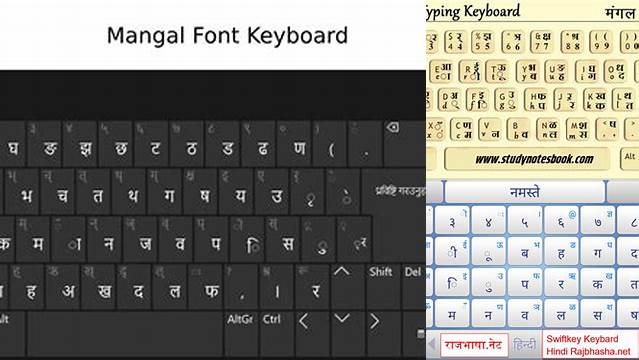
Mangal Font Keyboard: Images & Free Downloads
Hey guys! Ever needed to type in Hindi or another language that uses the Mangal font? It can be a bit tricky without the right tools. This article is your ultimate guide to finding and using a Mangal font keyboard, complete with images and resources for free downloads. We'll cover everything from understanding what Mangal font is to installing and using a virtual keyboard. Let's dive in!
What is Mangal Font?
Mangal font is a popular Devanagari script font used extensively for typing in Hindi and other Indian languages. It's often the default font used by government agencies and many organizations in India, making it essential for anyone needing to create documents in these languages. Unlike some other fonts that might require complex layouts or specialized software, Mangal is relatively straightforward to use once you have the right keyboard setup. Understanding this font is crucial for anyone working with Hindi text on computers. Its widespread adoption makes it a standard for official communications and documentation. Getting familiar with Mangal font means you'll be able to read, write, and format documents with ease, ensuring compatibility and professional appearance. It’s more than just a font; it’s a gateway to digital literacy in Hindi and other related languages. By mastering Mangal font, you open up opportunities to engage with a vast amount of content and connect with a large audience.
Why Use a Mangal Font Keyboard?
Using a Mangal font keyboard is essential for accurately typing in Hindi. Regular QWERTY keyboards don't have the necessary characters, so a specialized keyboard or input method is required. These keyboards are designed to map Devanagari characters to familiar key positions, making typing more intuitive. Without a Mangal font keyboard, you'd have to rely on cumbersome methods like character maps or copy-pasting, which are slow and inefficient. A dedicated keyboard allows for faster and more accurate typing, improving productivity significantly. Plus, it helps you maintain the correct formatting and layout required for professional documents. Having the right tools makes all the difference when working with Indic scripts. Whether you're writing emails, creating reports, or composing articles, a Mangal font keyboard is an indispensable asset. It ensures that your communication is clear, precise, and reflects your professionalism. In short, it bridges the gap between your thoughts and the digital world, allowing you to express yourself fluently in Hindi.
Finding the Right Mangal Font Keyboard Image
Finding the right Mangal font keyboard image is essential for learning the layout. A visual guide helps you understand where each character is located, making it easier to type without constantly looking at the screen. There are many images available online, but it's important to choose one that is clear and accurate. Look for images that show the entire keyboard layout, including the positions of special characters and modifiers. High-resolution images are best, as they allow you to zoom in and see the details clearly. You can find these images on various websites, including font repositories, language learning resources, and tech blogs. Print out the image and keep it next to your computer as a reference. Over time, you'll memorize the key positions, and typing in Mangal font will become second nature. Having a visual aid can significantly speed up the learning process and reduce errors. It’s a simple yet effective way to familiarize yourself with the intricacies of the Mangal font keyboard.
Even with the right tools, you might encounter some common issues when using a Mangal font keyboard. One frequent problem is incorrect character mapping, where the characters you type don't match the ones displayed on the screen. This can be due to incorrect keyboard layout settings or font issues. Make sure you have the correct keyboard layout selected in your system settings. Another issue is the font not displaying correctly in certain applications. This can be resolved by ensuring that the application supports Unicode fonts and that the Mangal font is properly installed. If you're using a virtual keyboard, check your internet connection and browser compatibility. Sometimes, browser extensions or plugins can interfere with the keyboard's functionality. Try disabling them temporarily to see if that resolves the issue. Troubleshooting these common problems can save you a lot of frustration and ensure a smooth typing experience. If all else fails, consult online forums or seek help from tech support.
Tips for Typing Faster with Mangal Font
To type faster with Mangal font, practice is key. Start by familiarizing yourself with the keyboard layout. Use a Mangal font keyboard image as a reference and try to memorize the positions of the most commonly used characters. Practice typing simple words and sentences, gradually increasing your speed. Online typing tutors can also be helpful, as they provide structured lessons and track your progress. Another tip is to use both hands and avoid hunting and pecking. Proper finger placement can significantly improve your typing speed and accuracy. Consistency is also important. Try to practice regularly, even if it's just for a few minutes each day. Over time, your muscle memory will develop, and you'll be able to type in Mangal font without even thinking about it. Finally, don't be afraid to experiment with different typing techniques and find what works best for you. With dedication and persistence, you can become a proficient Mangal font typist.
The Importance of Accurate Mangal Font Typing
The importance of accurate Mangal font typing cannot be overstated, especially in professional and academic contexts. Incorrect typing can lead to misunderstandings, misinterpretations, and even errors in official documents. Inaccurate typing can undermine your credibility and create a negative impression. In business communications, precision is crucial for maintaining professionalism and building trust. In academic writing, errors can affect your grades and the overall quality of your work. Furthermore, inaccurate typing can make it difficult for others to read and understand your text. This can be particularly problematic when communicating with people who are not familiar with the Mangal font or Hindi language. Therefore, it's essential to strive for accuracy in all your typing endeavors. Take the time to proofread your work carefully and use spell-checking tools to identify and correct any errors. Accurate typing ensures that your message is clear, concise, and professional.
Advanced Techniques for Mangal Font Typography involve subtle adjustments and refinements that can significantly enhance the visual appeal and readability of text. This includes kerning and tracking, adjusting the spacing between individual characters (kerning) and between words (tracking) to improve readability and visual harmony. Also think about leading and line height, adjusting the vertical space between lines of text to improve readability and visual flow. Use ligatures and contextual alternates to create a more natural and elegant appearance. Incorporating stylistic sets will also allow you to change your font into another style. All of this can allow you to refine your typography and make your text more effective.